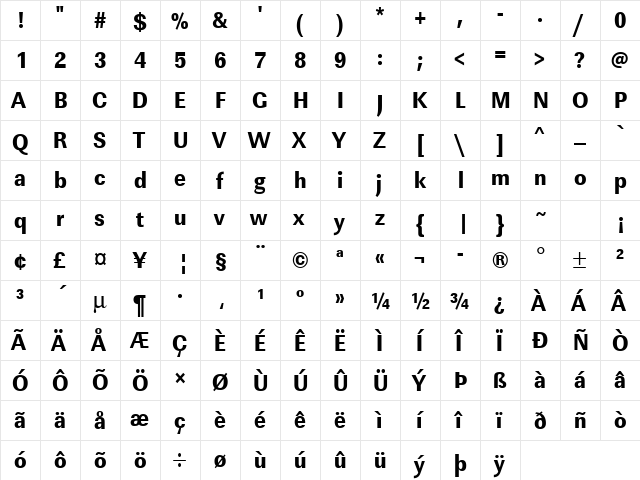
URWLinearTExtBolExtNar Regular
Design Context for URWLinearTExtBolExtNar Typeface
URWLinearTExtBolExtNar takes a measured approach to typography — its balanced proportions and neutral character make it a reliable workhorse for both digital and print work.